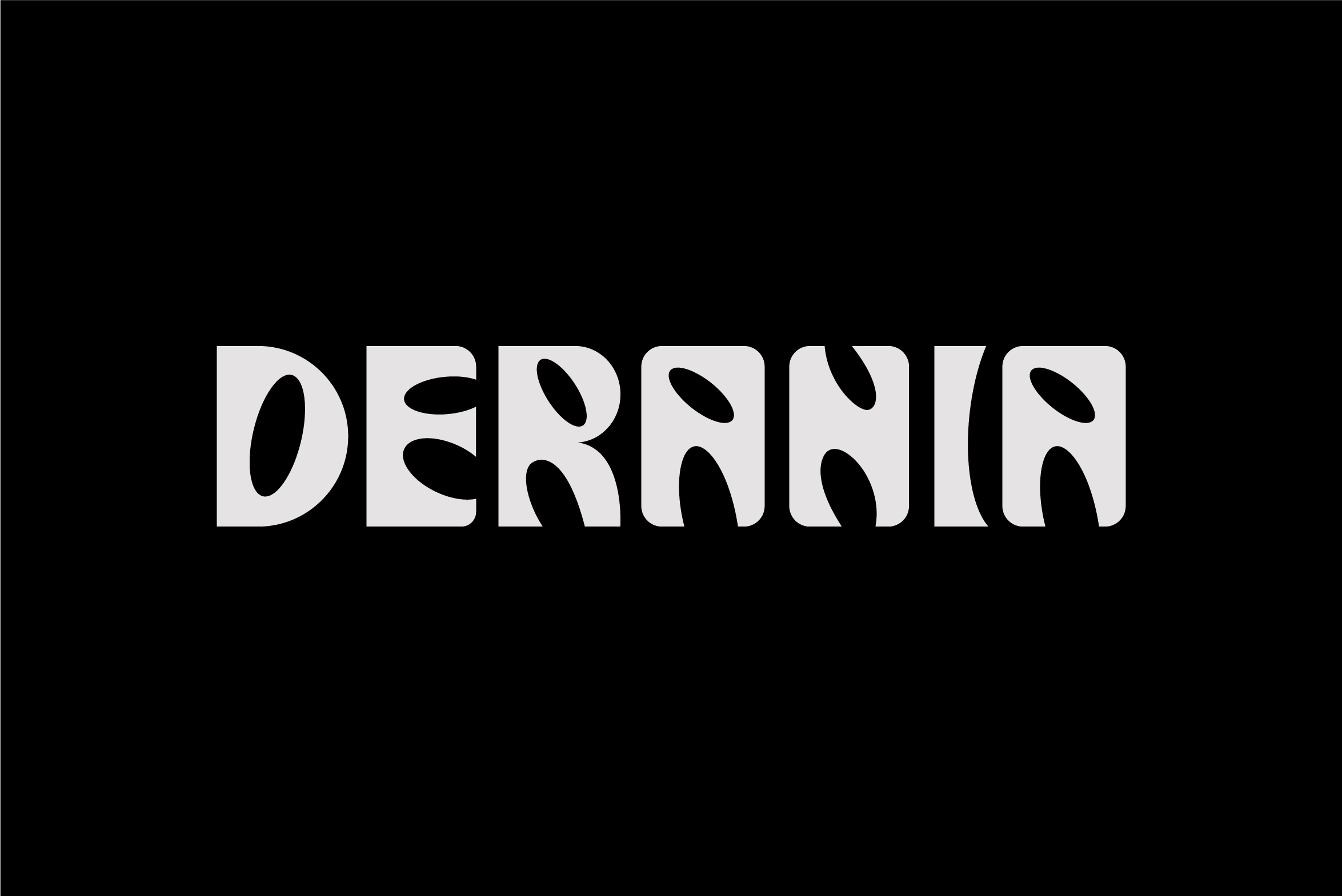
Fiver Display Font is a very cool and dynamic display font that makes your display more attractive. The font combines the best parts of both the vintage and modern into a single style.
The font is best suited for large display sizes such as : logos, quotes, packaging, merchandise,headlines, advertising and more.